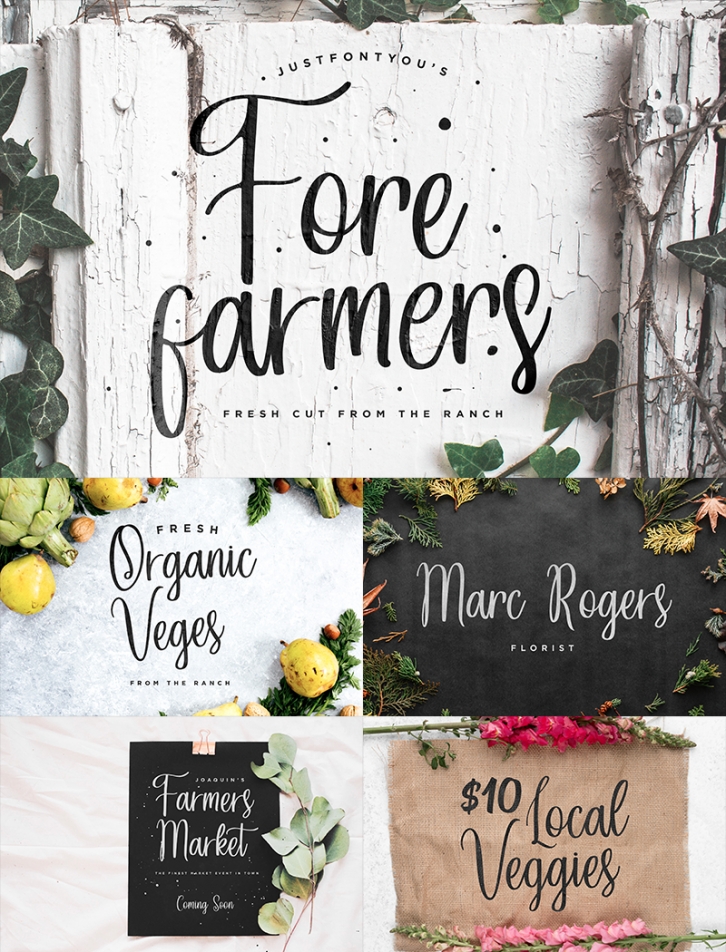
Forefarmers, A rustic farmhouse script hand lettering font. Inspired by the farmers market signs and those rustic vintage events nowadays. Perfectly fit for vintage wedding concept, logo, branding, farmers market event, flea market, casual handmade stuff, poster quotes, feminine stuff, cosmetic branding, etc.